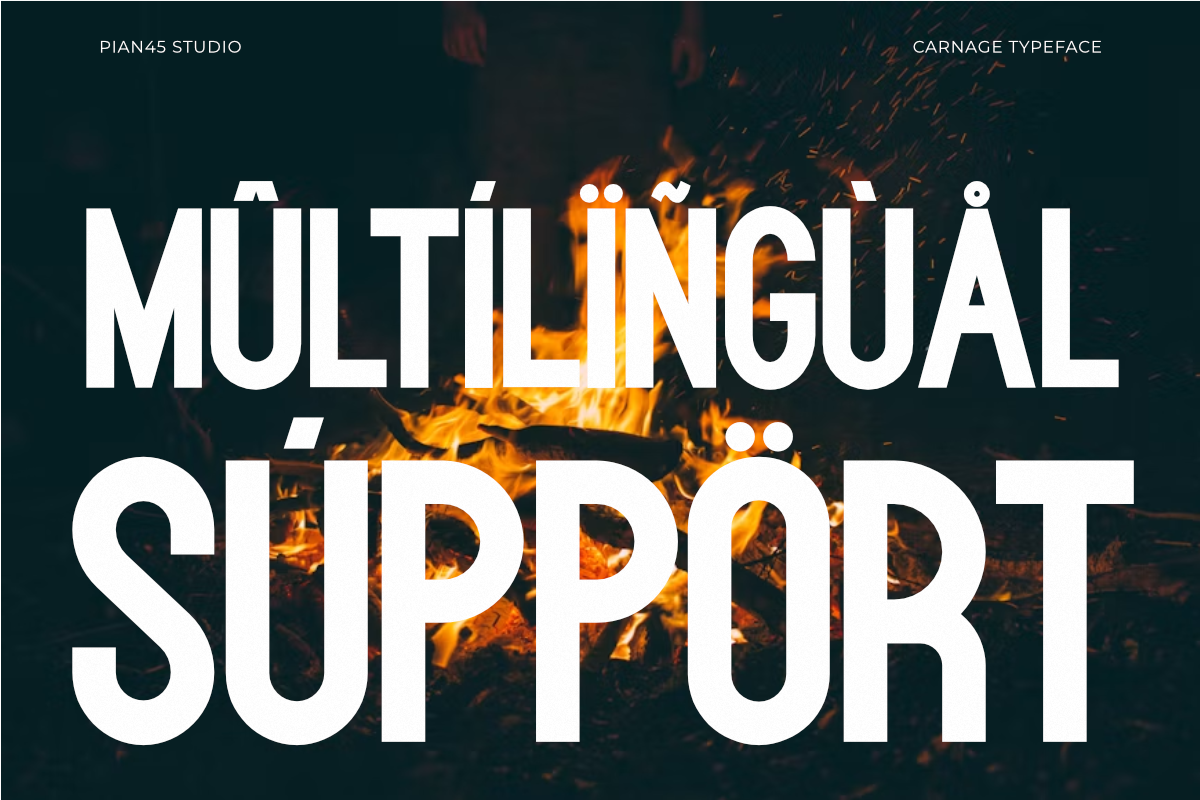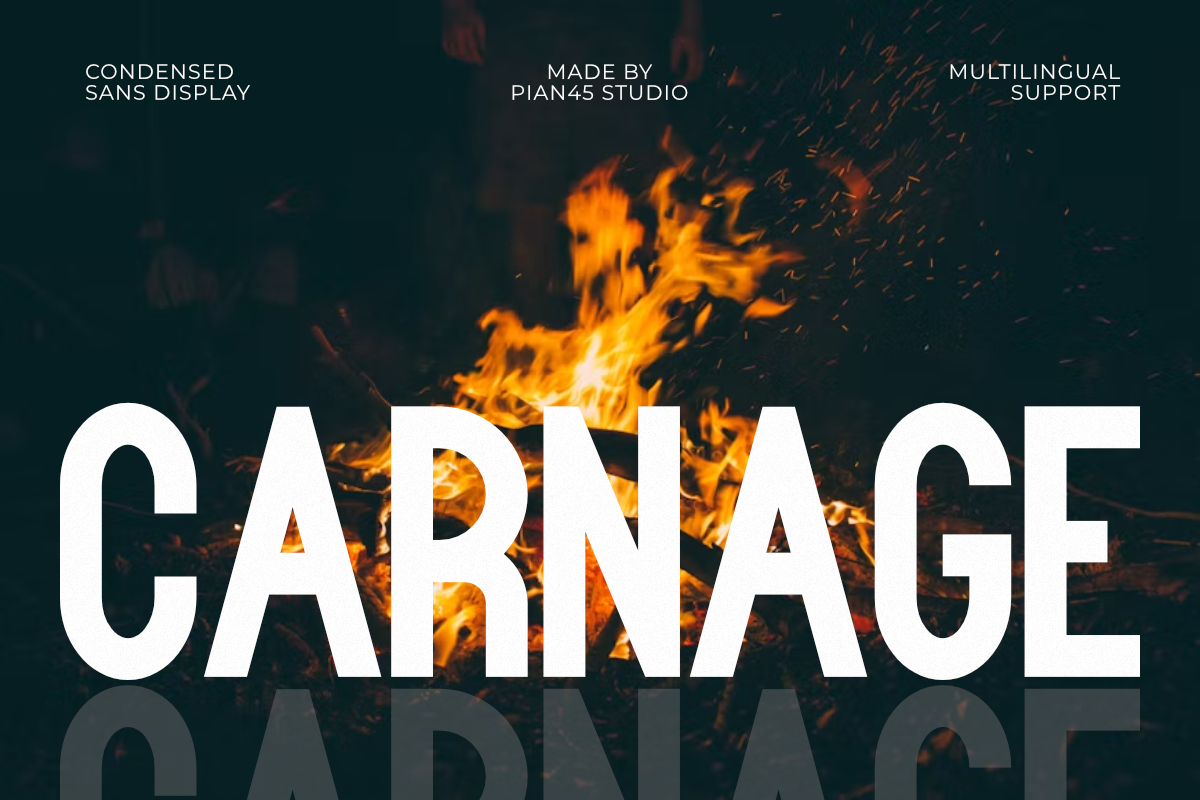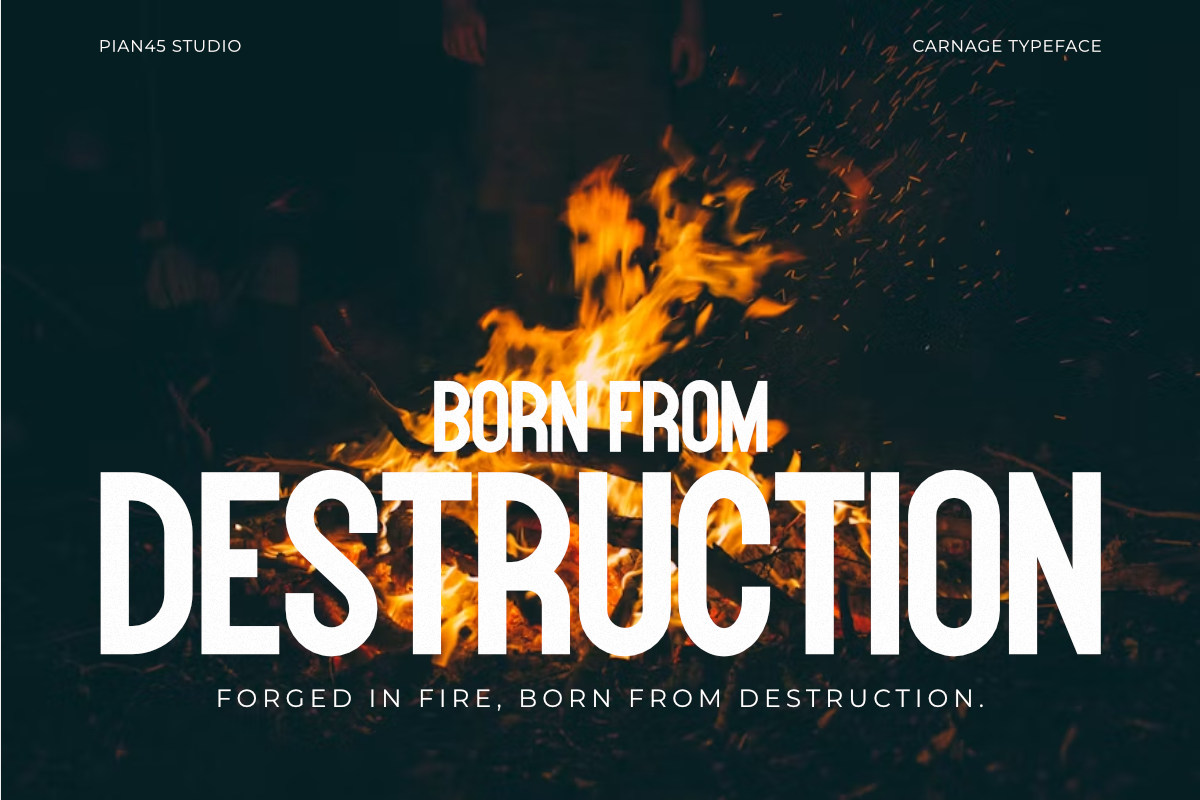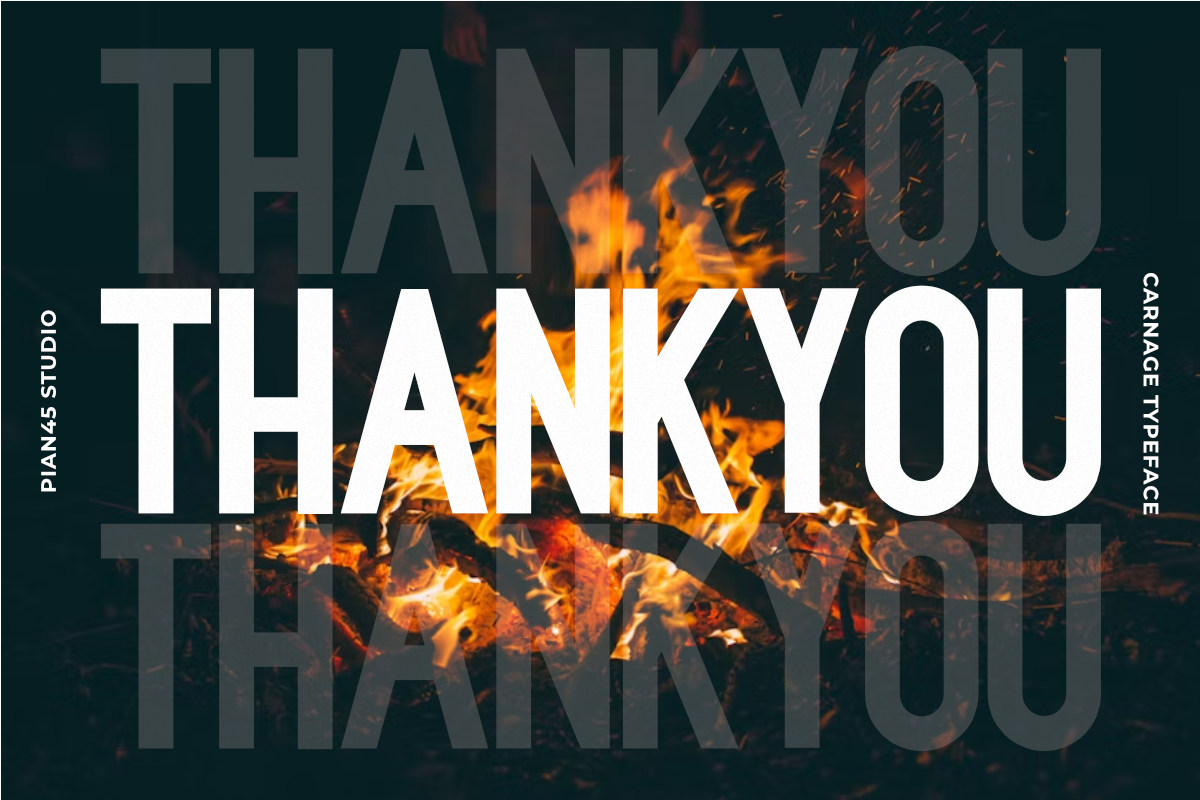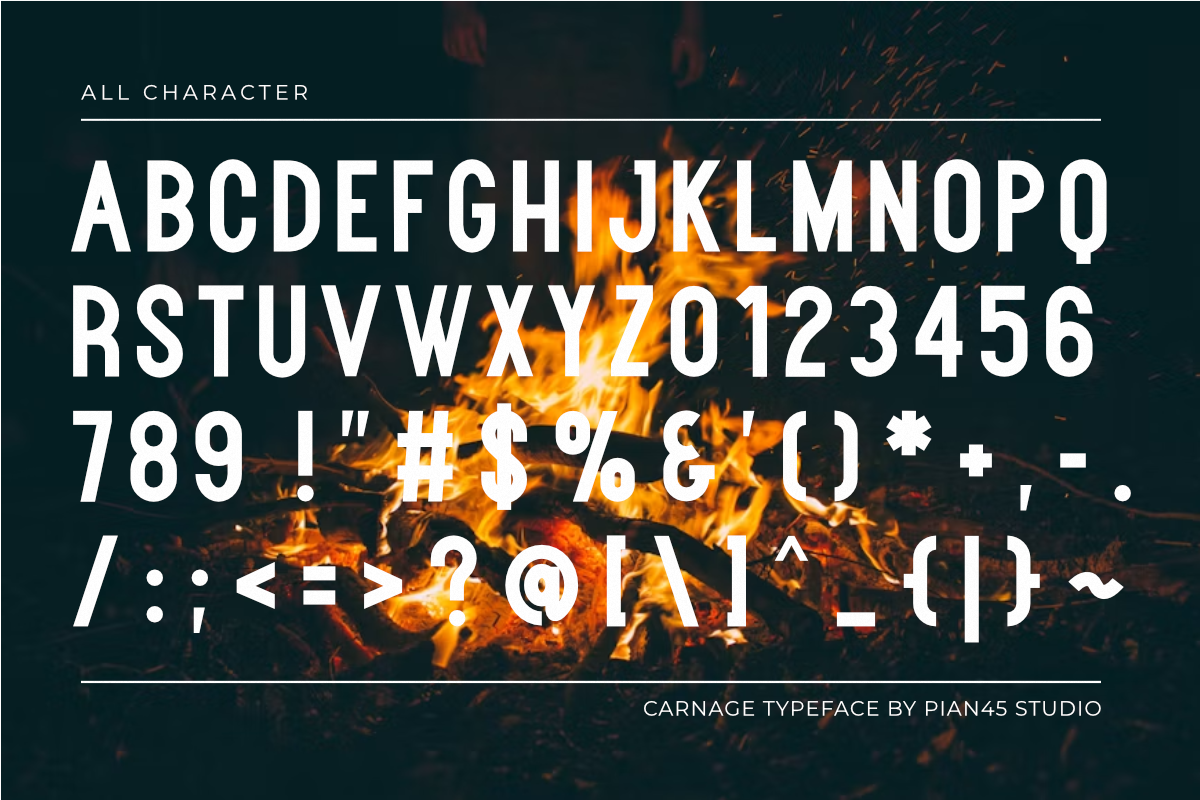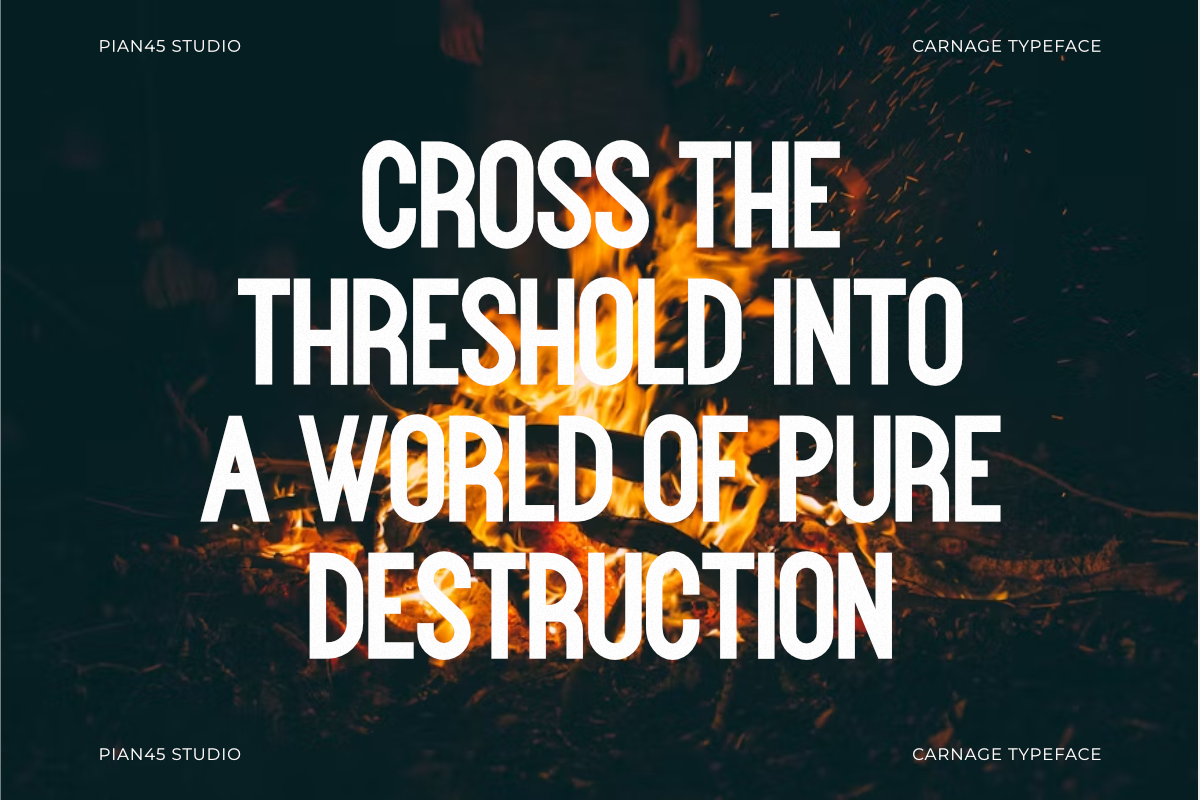
Carnage - Bold Condensed Sans Font
Carnage is an intense, high-impact Condensed Sans Display font engineered to convey aggressive power, extreme heat, and raw visual dominance. Built with bold geometric letterforms, sharp clean cuts, narrow proportions, and full multilingual support, this all-caps typeface is crafted for action movie titles, heavy metal merchandise, sports team logos, gaming graphics, and urban streetwear lines. Its solid structural presence guarantees maximum legibility in tight spaces, making it the ultimate choice for high-visibility headlines, promotional banners, event posters, and digital marketing materials.